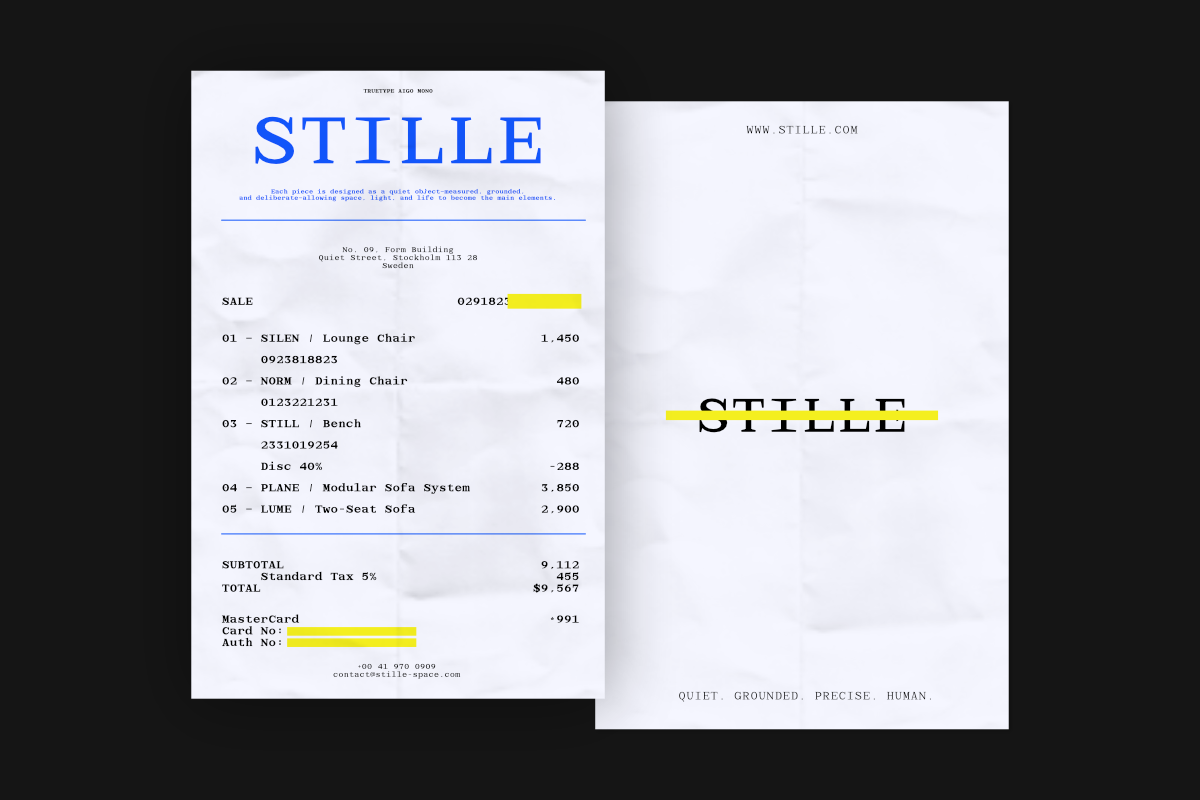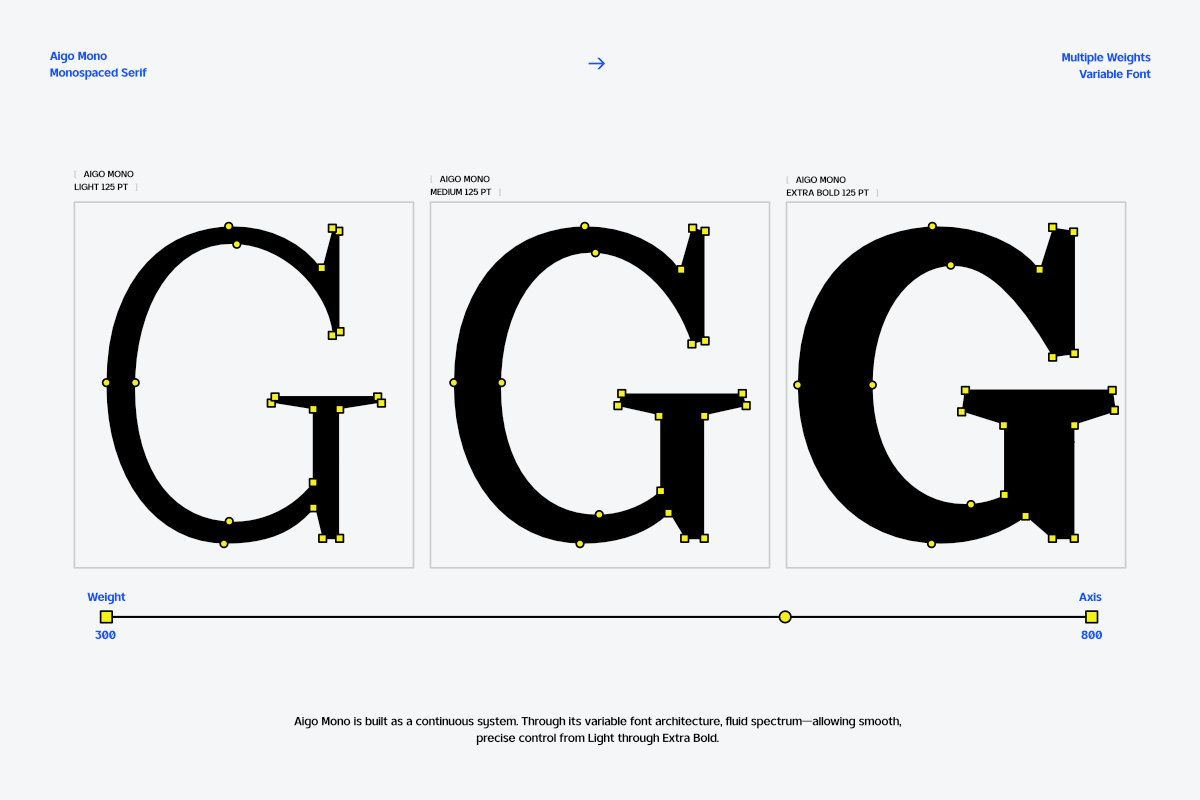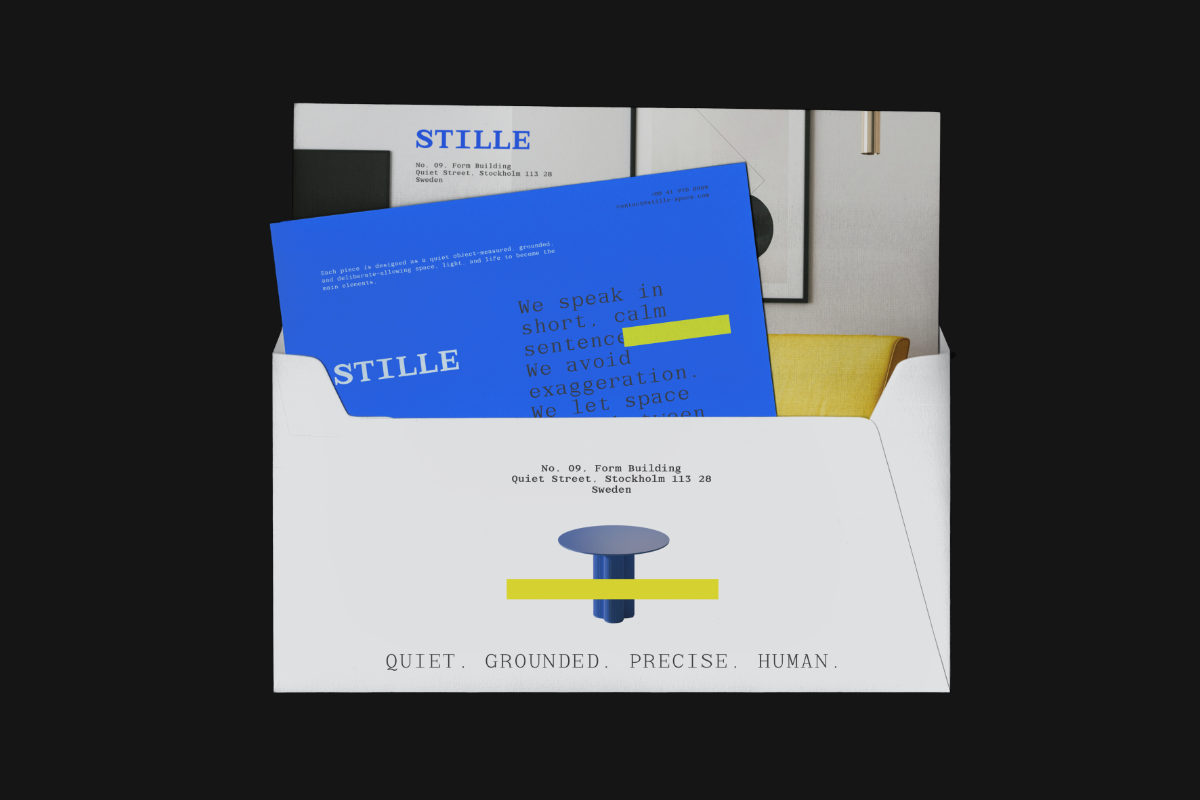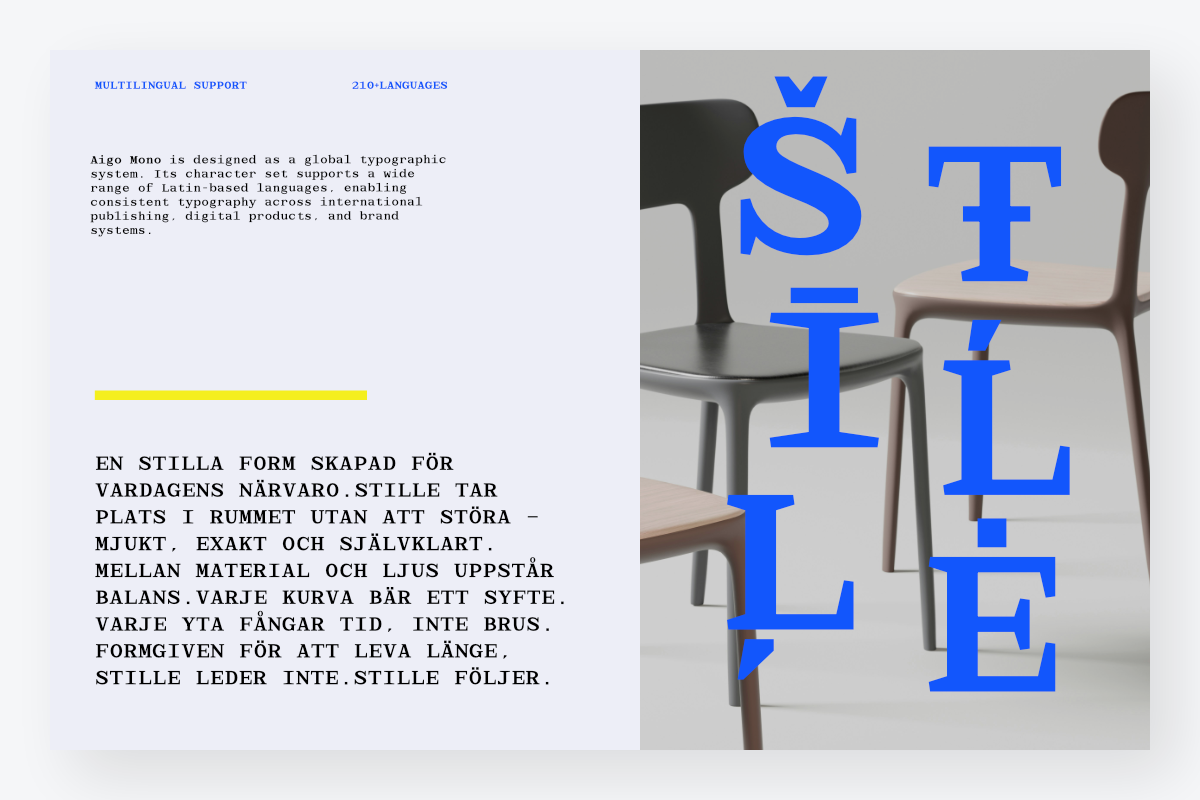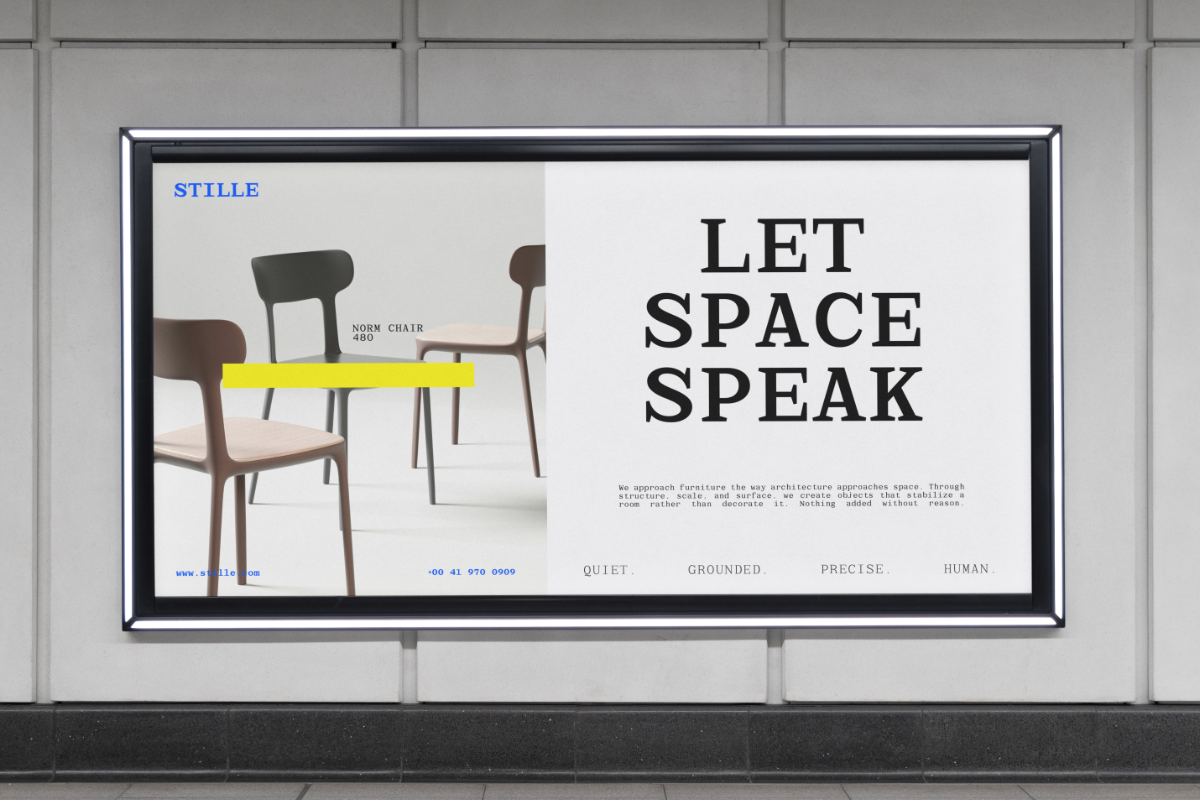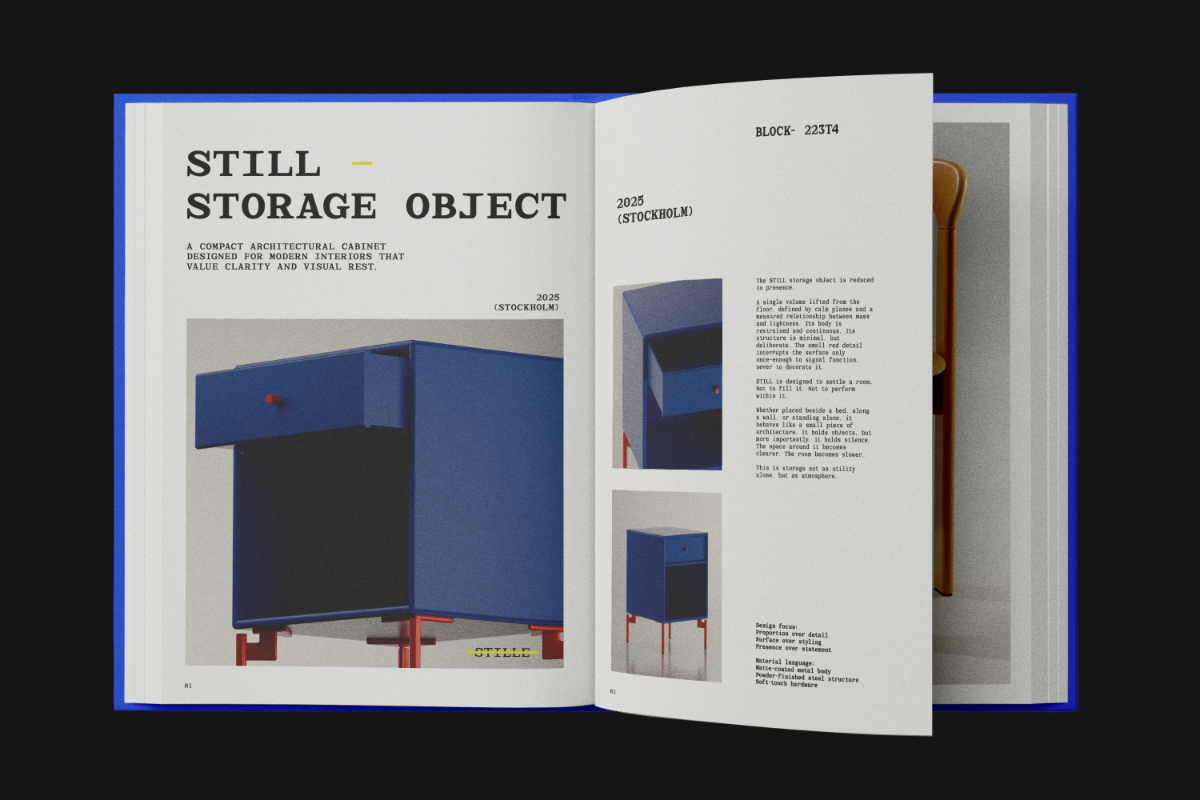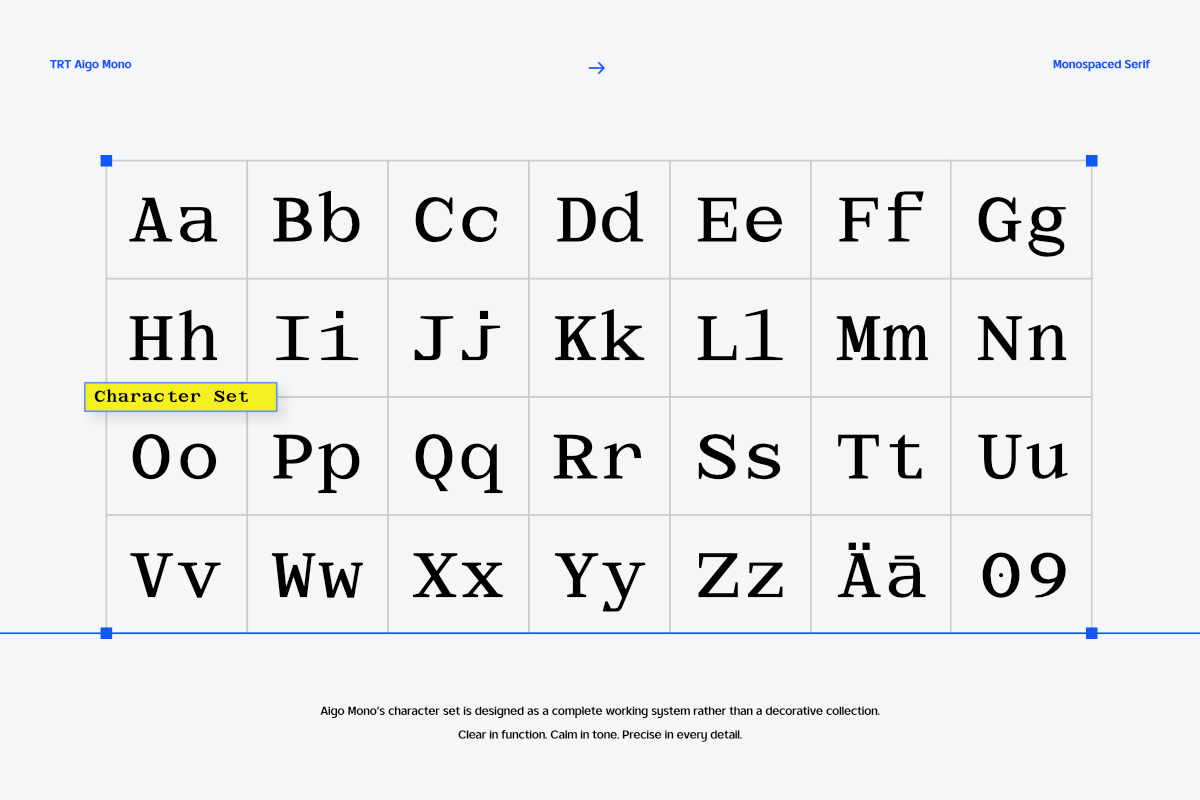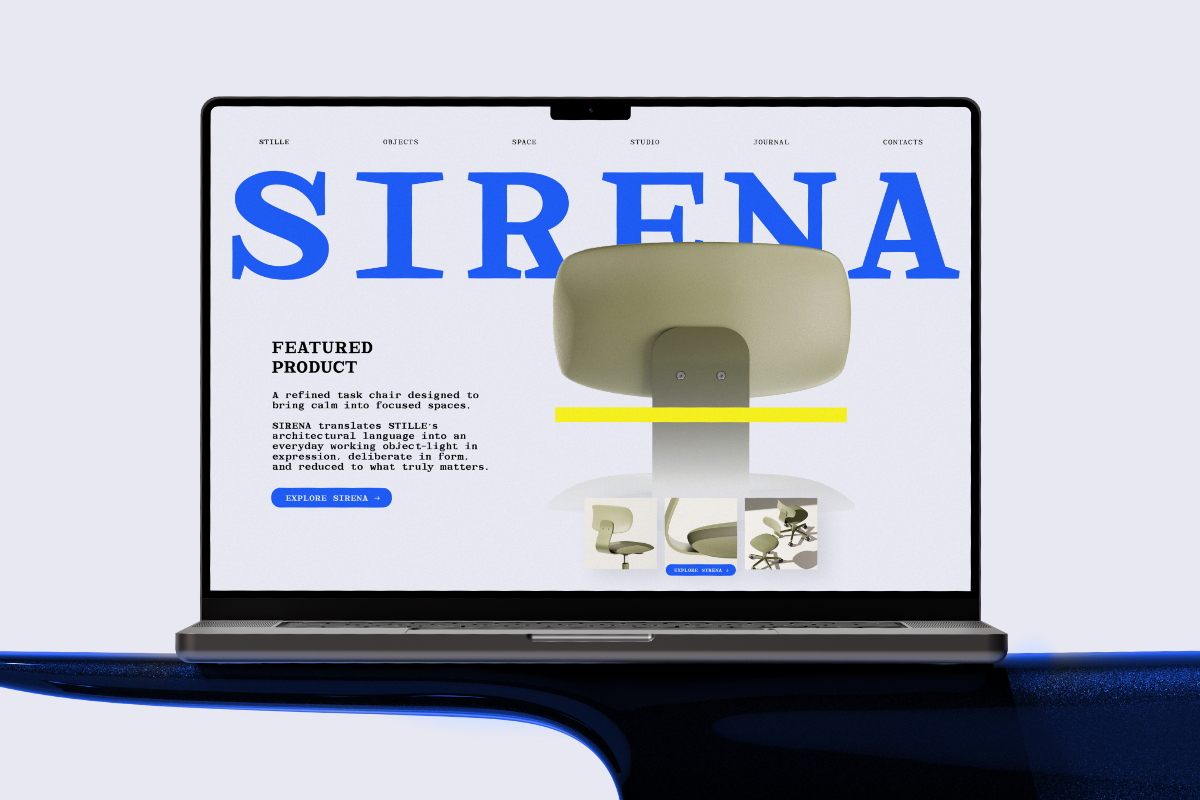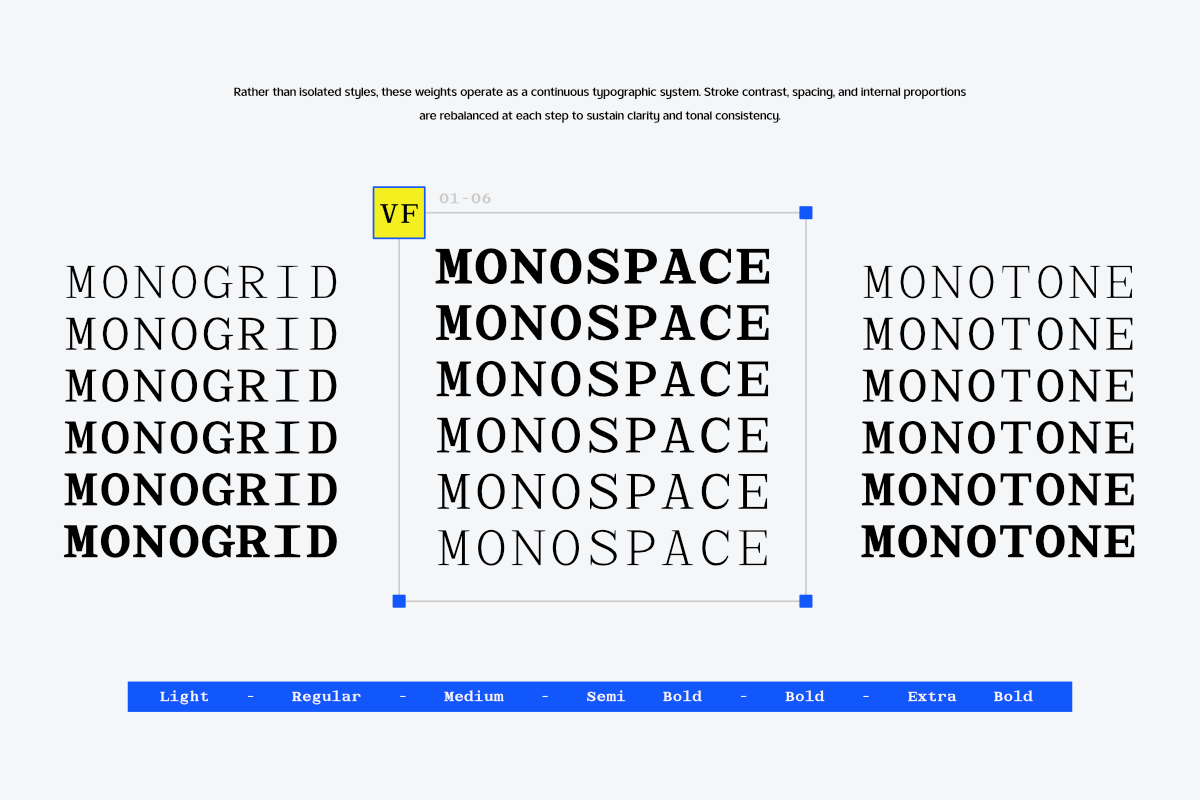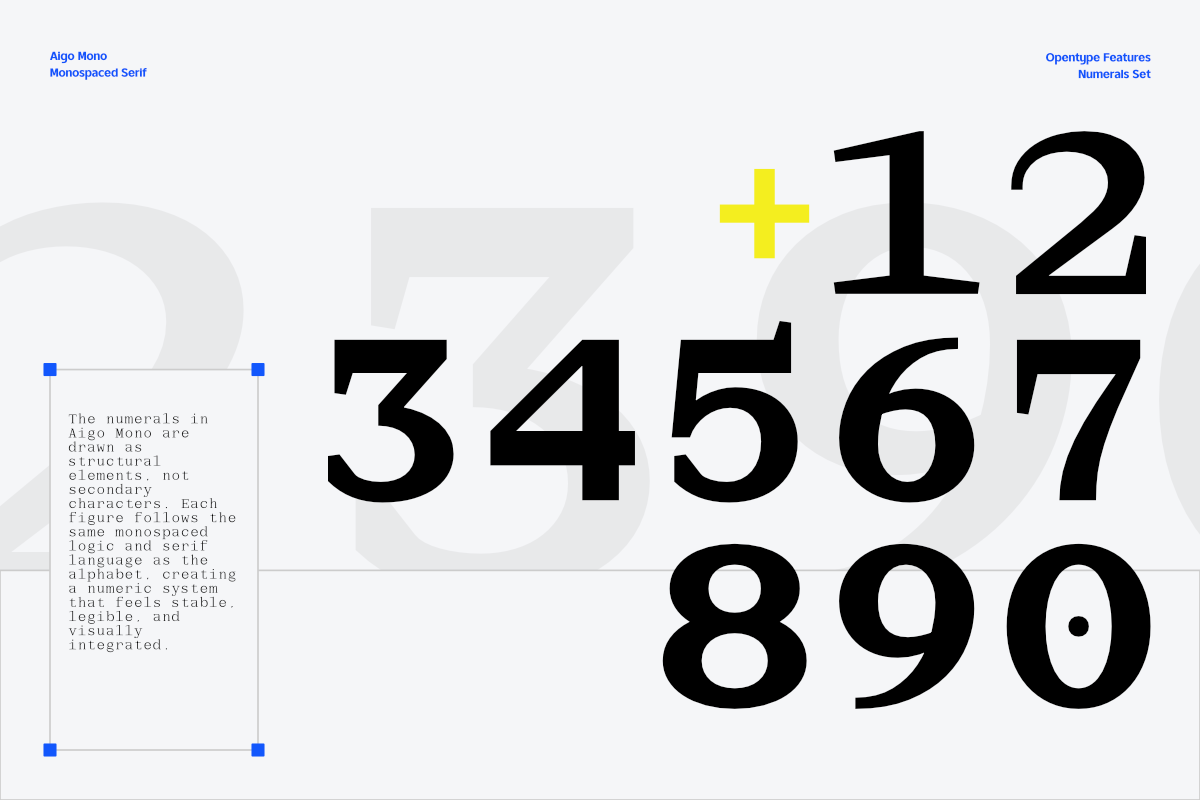
TRT Aigo Mono Monospace Serif Type
Aigo Mono is a monospace serif typeface built around structure, rhythm, and typographic discipline. With equal-width letterforms, it establishes a consistent grid that brings clarity and order to complex layouts, making it especially effective in systems-driven design.
The serif details introduce a subtle sense of character and warmth, softening the rigid nature of monospace typography without compromising legibility. Carefully balanced proportions and multiple weights allow Aigo Mono to perform across editorial layouts, interfaces, and experimental compositions.
Designed for designers who value precision and consistency, Aigo Mono offers a composed, modern voice functional yet expressive, structured yet adaptable.